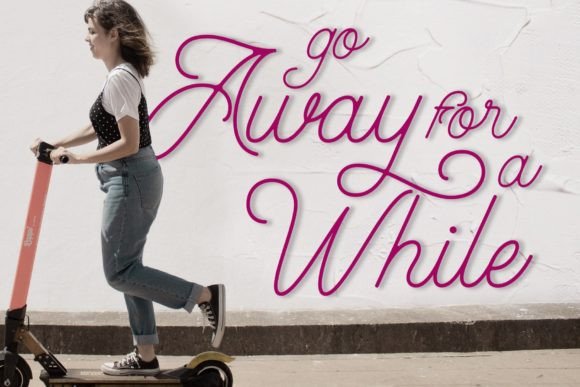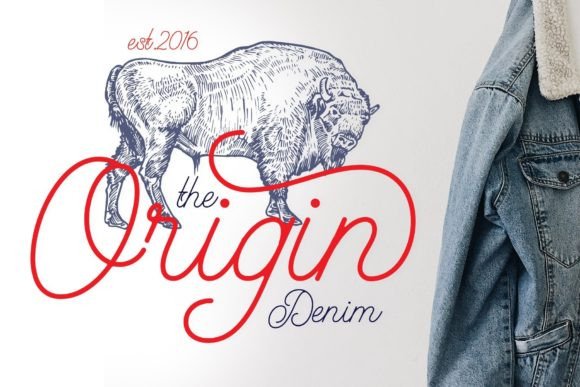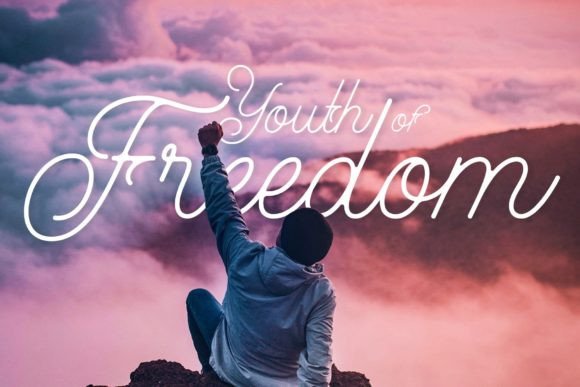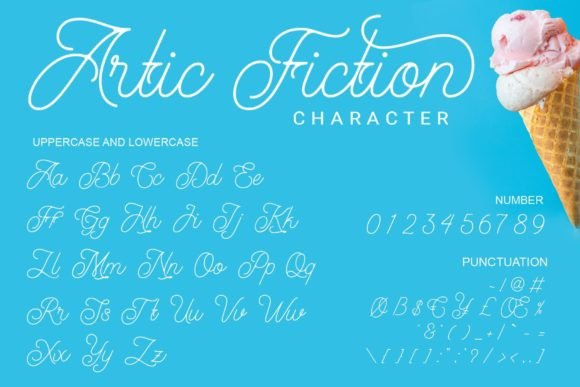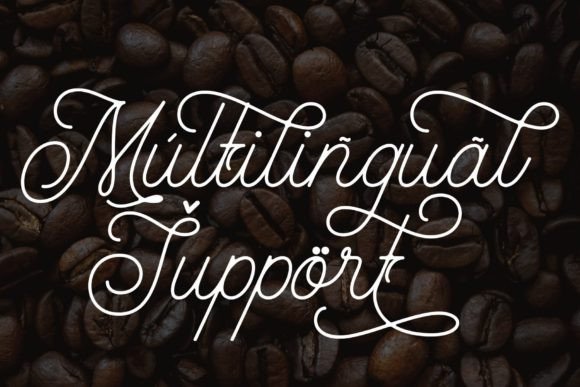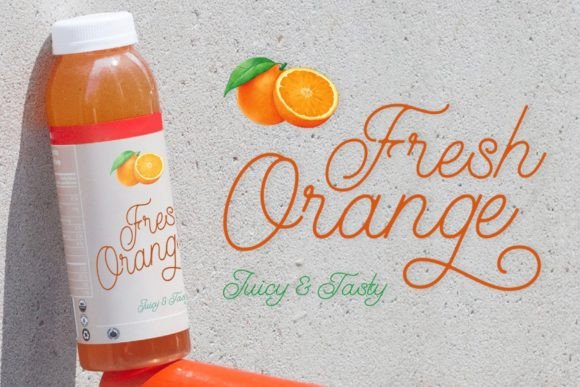
Introducing Artic Fiction Font: The Perfect Handwritten Touch for Your Designs
Are you tired of using generic, overused fonts in your designs? Do you want to add a personal touch that sets your work apart from the rest? Look no further than Artic Fiction Font, a beautiful handwritten font that’s perfect for crafters, designers, and anyone looking to add a natural, handmade feeling to their projects.
What is Artic Fiction Font?
Artic Fiction is a specially crafted handwritten font that’s designed to bring a touch of authenticity and personality to your designs. With its unique, flowing script, Artic Fiction is perfect for a wide range of applications, from lettering and events to logos, labels, and product packaging.
The Benefits of Using Artic Fiction Font
So why choose Artic Fiction Font for your next project? Here are just a few benefits of using this versatile and beautiful font:
- Natural, Handmade Feel: Artic Fiction Font has a unique, handwritten quality that’s perfect for designers and crafters who want to add a personal touch to their work.
- Authentic and Unique: With Artic Fiction, you can say goodbye to generic, overused fonts and hello to a truly one-of-a-kind look that’s sure to stand out.
- Versatile: Whether you’re working on a logo, label, invitation, or T-shirt print, Artic Fiction Font is the perfect choice.
- Easily Readable: Despite its unique, handwritten quality, Artic Fiction Font is still easily readable, making it perfect for body text and other applications where clarity is key.
Artic Fiction Font is perfect for designers and crafters who want to add a personal touch to their work. Whether you’re creating:
- Logos and Branding: Use Artic Fiction Font to create a unique and memorable logo that sets your brand apart.
- Invitations and Stationery: Add a touch of elegance and sophistication to your invitations and stationery with Artic Fiction Font.
- T-Shirt Prints and Merchandise: Create eye-catching T-shirt prints and merchandise with Artic Fiction Font.
- Product Packaging: Stand out on store shelves with beautiful, custom product packaging featuring Artic Fiction Font.
Tips and Tricks for Getting the Most Out of Artic Fiction Font
Here are a few tips and tricks for getting the most out of Artic Fiction Font:
- Experiment with Different Sizes and Colors: Artic Fiction Font looks great in a variety of sizes and colors, so don’t be afraid to experiment and find the perfect combination for your design.
- Pair with Other Fonts: Artic Fiction Font pairs well with a variety of other fonts, so try combining it with other fonts to create a unique and interesting look.
- Use for Body Text: While Artic Fiction Font is perfect for headings and titles, it’s also easily readable enough to use for body text.